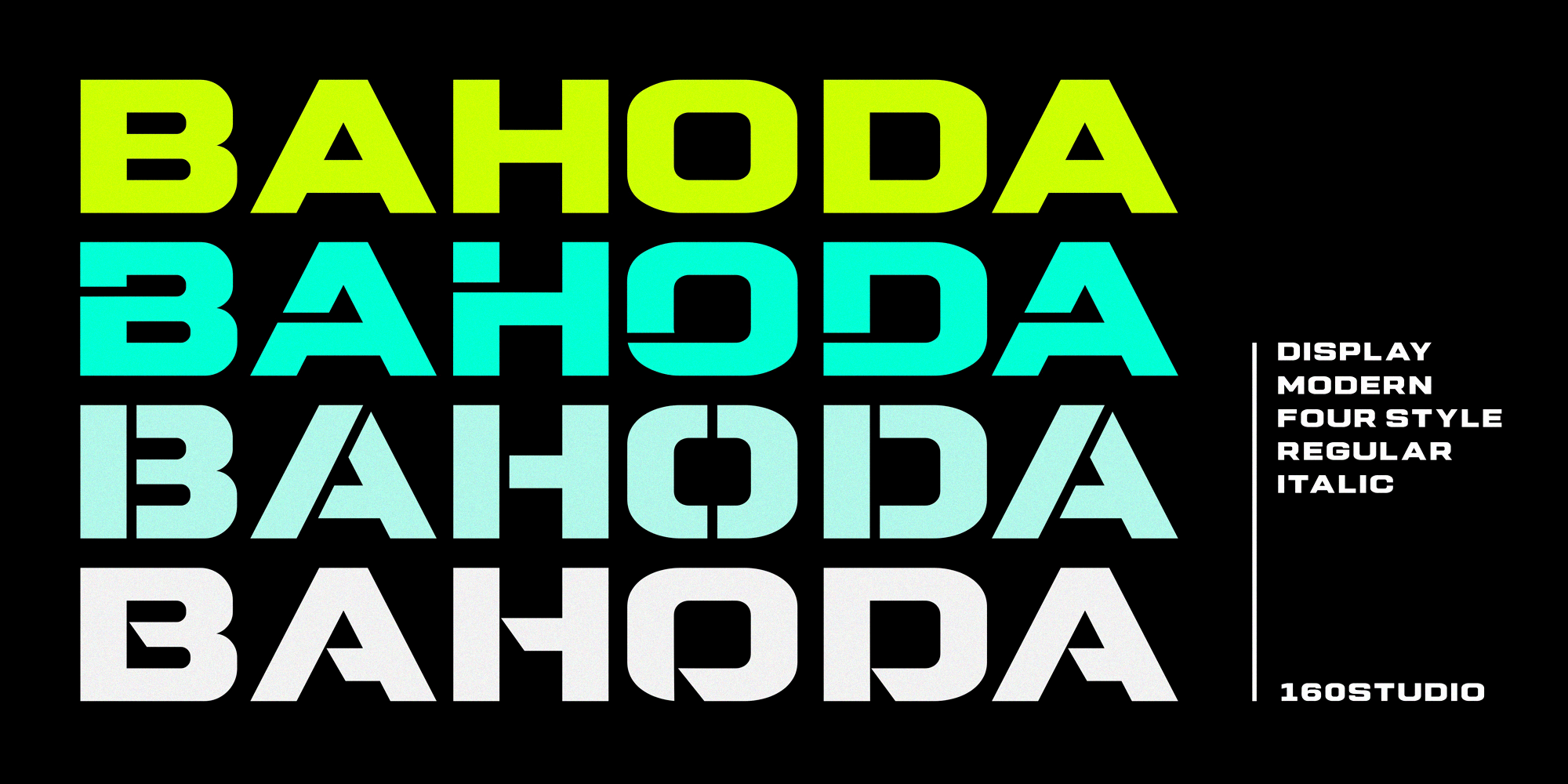
Bahoda Font is perfect for modern lifestyle brands, contemporary wellness centers, minimalist app interfaces, sleek corporate presentations, sophisticated beauty campaigns, urban lifestyle magazines, progressive design studios, innovative tech startups, and refined social media content. This elegant typeface brings contemporary sophistication and urban refinement to both digital and print design applications.
Bahoda Font is exciting because it embodies the perfect balance of modern minimalism with sophisticated functionality, making it an exceptional choice for designers who want to convey contemporary elegance with clean precision. Its streamlined letterforms and balanced proportions provide the perfect combination of urban sophistication and professional readability, ensuring your projects communicate modern excellence, refined taste, and progressive thinking that resonates with contemporary audiences seeking sophisticated design solutions.
The Bahoda Font family includes comprehensive weight variations and stylistic options, featuring light, regular, medium, and bold weights with matching italic styles and extended character sets. Each style maintains consistent contemporary aesthetics while offering flexibility for different modern applications, allowing designers to create cohesive brand systems that reflect urban sophistication and contemporary design principles.
Whether you're designing for lifestyle brands, technology companies, or contemporary businesses, Bahoda Font Free Download delivers authentic modern appeal and sophisticated functionality that connects with audiences seeking refined contemporary experiences. This premium typeface offers designers the precision and elegance needed to create designs that communicate modern sophistication, urban refinement, and progressive excellence effectively. The font's contemporary character makes it perfect for branding, digital interfaces, and modern applications where sophisticated minimalism is essential. Download Bahoda Font today and elevate your creative projects with genuine contemporary sophistication and modern typography excellence that defines urban design standards.